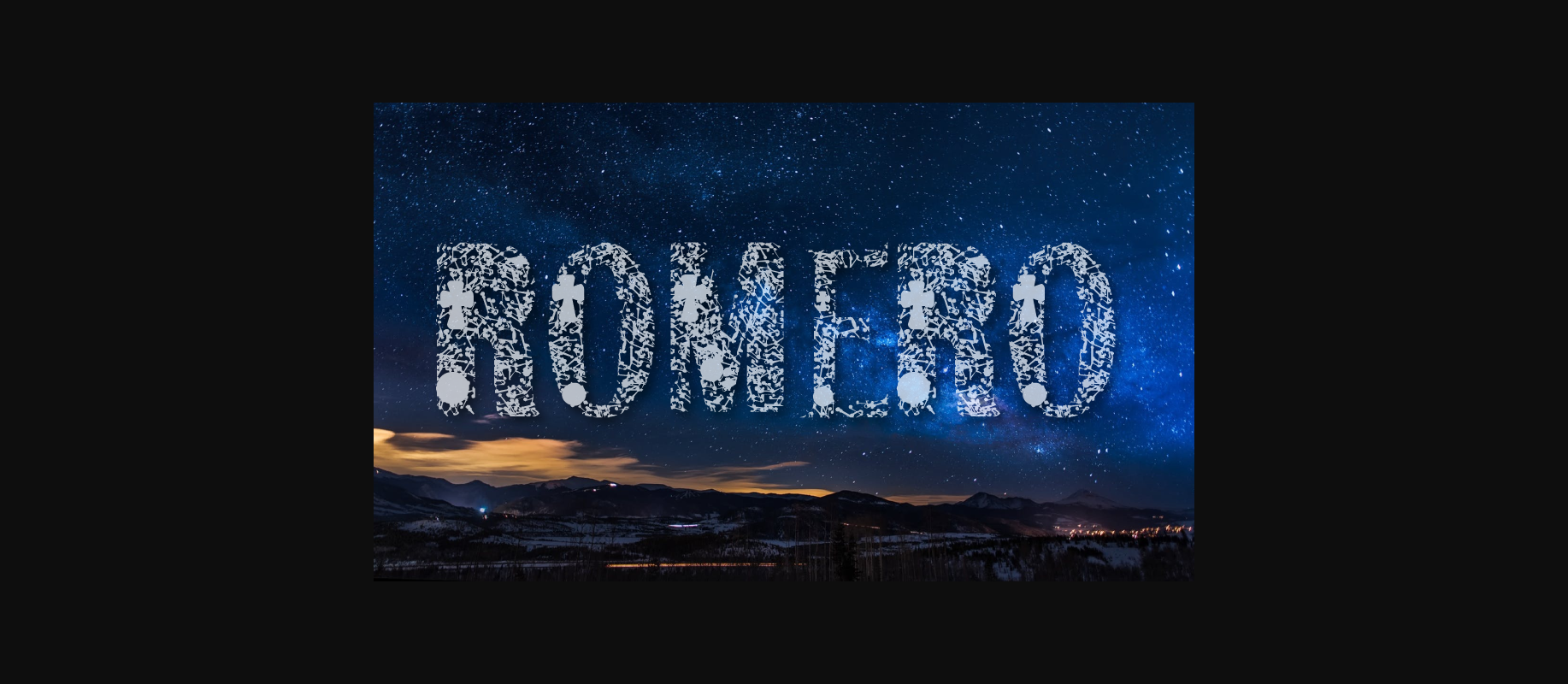
Romero Font
About Romero Font
Romero is a highly decorative font inspired by San Romero de América; this gorgeous decorative font is perfect for displays and any other creative project that needs a typographic focal point.